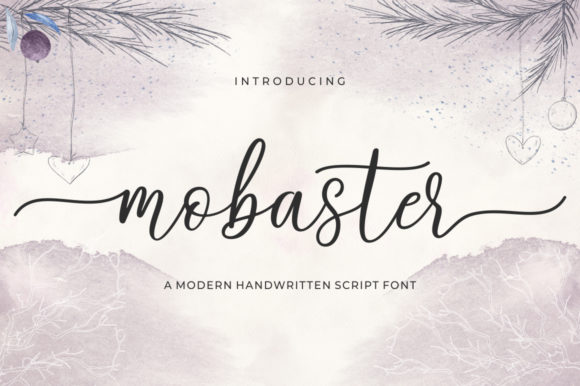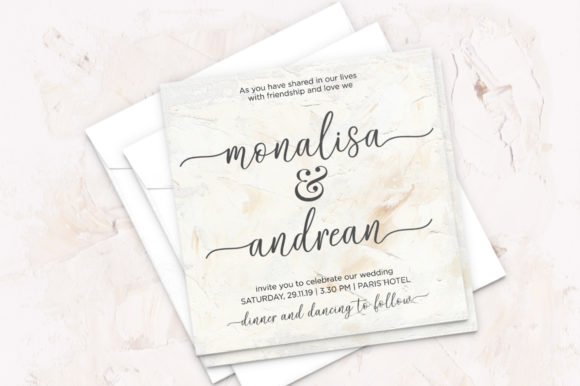
About Mobaster Script Font
Introducing The Mobaster, a modern handwritten script font that dances along a dynamic baseline, adorned with decorative characters. This font is not just a typeface; it’s a design tool that brings a unique and elegant touch to a wide array of creative projects.
The Mobaster’s dancing baseline adds a lively and dynamic quality to the script, creating a sense of movement and fluidity. The decorative characters further enhance its visual appeal, making it a versatile choice for a myriad of design applications.
This font finds its perfect home in blog headers, where its modern and handwritten style can add a personal and stylish touch. For branding purposes, The Mobaster stands out, offering a unique and memorable visual identity. T-shirts come to life with its dynamic script, and weddings gain an elegant and personalized flair with this font.
In the realm of social media and product designs, The Mobaster shines as a versatile and eye-catching element. Its application extends to stationery, advertising materials, clothing designs, book covers, business cards, greeting cards, and any other project that calls for an elegant touch.
In essence, The Mobaster is more than just a font; it’s a creative asset that brings a dynamic and elegant quality to your designs. Whether you’re crafting blog headers, branding materials, or any other project that needs a touch of uniqueness, embrace the distinctive charm of The Mobaster and let it elevate your creative endeavors.